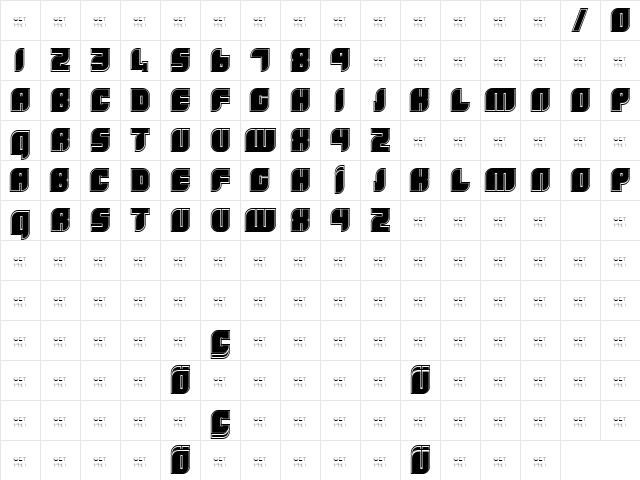
Boldie Outline
Design Context for Boldie Outline Typeface
Boldie Outline brings ornamental detail and strong personality to headlines and identities, where visual impact matters more than quiet functionality. The heavy weight commands attention and anchors typographic hierarchies.
Font Pairing: Pair with a clean neutral sans-serif for body copy to let Boldie Outline's character lead without overwhelming the composition.
Pro Tip: Use Boldie Outline exclusively at display sizes — it was designed to be seen, not read at length. Let a neutral companion handle body copy.